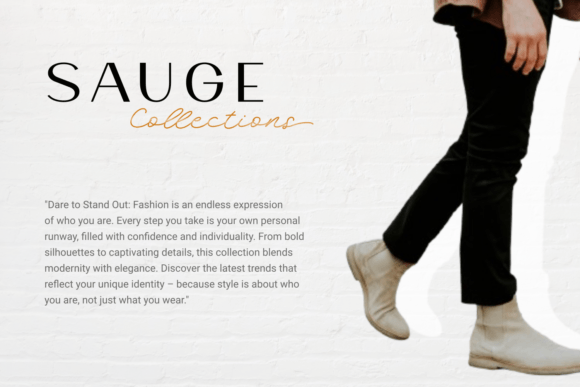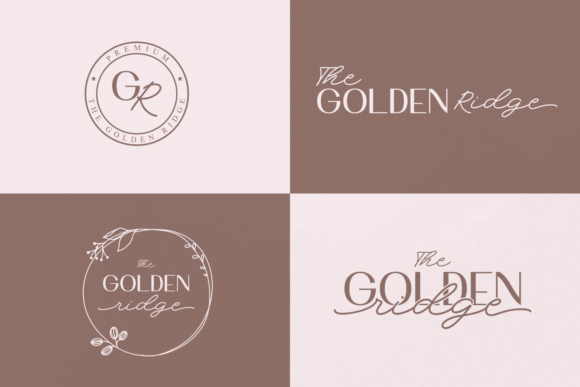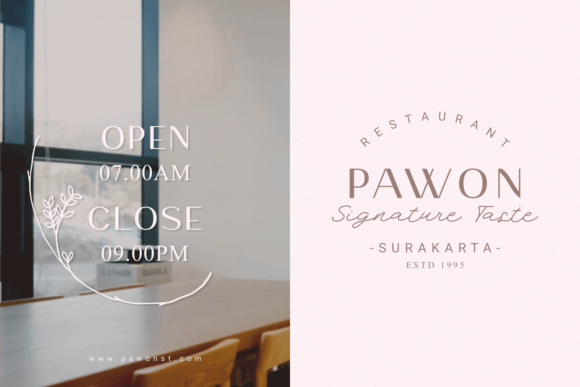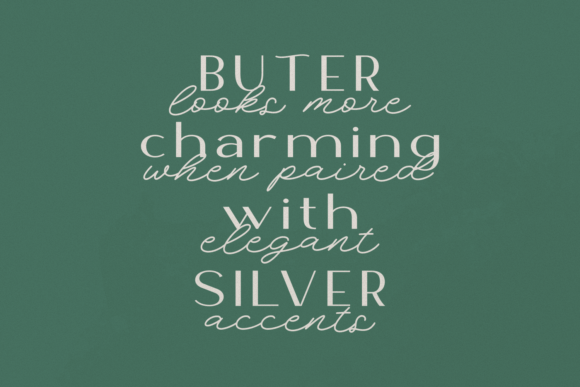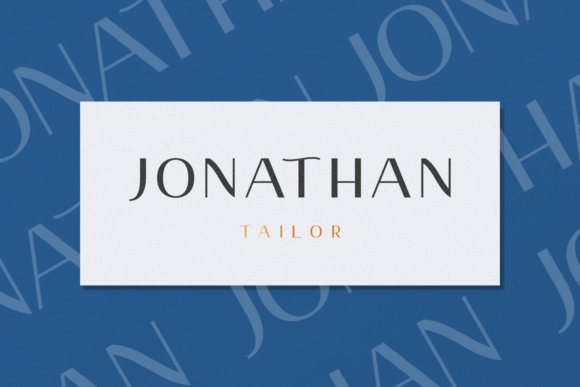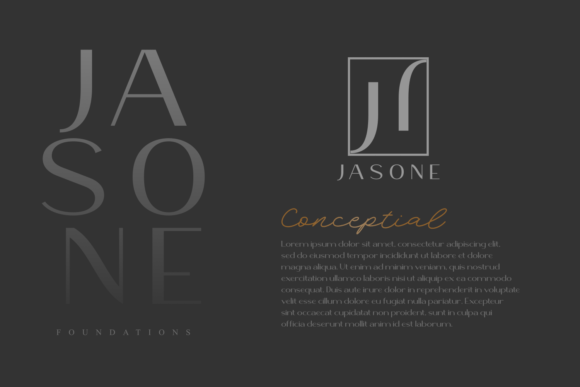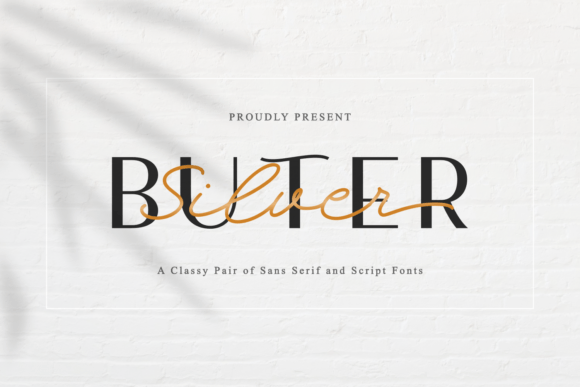
Introducing Buter Silver Font Duo: Elevate Your Designs with Elegant Simplicity
In the world of typography, finding the perfect font that balances formality and warmth can be a daunting task. However, with the Buter Silver Font Duo, designers and crafters can now achieve a harmonious blend of clean sans-serif and soft, artistic handwriting. This modern font combination is specifically designed to add an elegant personal touch to various design projects, making it an ideal choice for those seeking a balance between sophistication and approachability.
What Makes Buter Silver Font Duo Stand Out?
The Buter Silver Font Duo is not just another font combination; it’s a versatile and dynamic pairing that can elevate a wide range of design projects. Here are some key features that make it stand out:
- Clean Sans-Serif and Artistic Handwriting: The duo combines the clarity and readability of a clean sans-serif font with the warmth and personality of soft, artistic handwriting. This blend creates a unique visual appeal that can add depth and interest to any design.
- Modern Feel with Elegant Personal Touch: Buter Silver Font Duo offers a modern aesthetic with an elegant personal touch, making it perfect for designs that require a sophisticated yet approachable look.
- Versatile and Dynamic: This font duo is highly versatile and can be used for a variety of design projects, including branding, web design, creative quotes, wedding invitations, and more.
The Buter Silver Font Duo is an excellent choice for designers and crafters working on various projects. Here are some ideal use cases for this font combination:
- Branding: Create a lasting impression with a professional and elegant brand identity that showcases your company’s values and personality.
- Web Design: Enhance the user experience with a clean and readable font combination that adapts seamlessly to various digital platforms.
- Creative Quotes: Add a touch of sophistication and inspiration to your quote designs, making them perfect for social media, blogs, or marketing materials.
- Wedding Invitations: Make your wedding invitations truly special with a beautiful and elegant font combination that sets the tone for your big day.
Why Choose Buter Silver Font Duo?
With so many font combinations available, why should you choose Buter Silver Font Duo? Here are some compelling reasons:
- Elegant Simplicity: This font duo offers a perfect blend of elegance and simplicity, making it easy to read and visually appealing.
- Timeless Visual Appeal: The Buter Silver Font Duo has a timeless quality that ensures your designs will remain stylish and relevant for years to come.
- Easy to Use: This font combination is easy to use and pairs well with a variety of other fonts, making it a versatile addition to your design toolkit.
In conclusion, the Buter Silver Font Duo is an exceptional choice for designers and crafters seeking a harmonious blend of clean sans-serif and soft, artistic handwriting. With its modern feel, elegant personal touch, and versatile nature, this font combination is perfect for a wide range of design projects. Whether you’re working on branding, web design, creative quotes, wedding invitations, or more, Buter Silver Font Duo is sure to deliver elegant simplicity with timeless visual appeal.